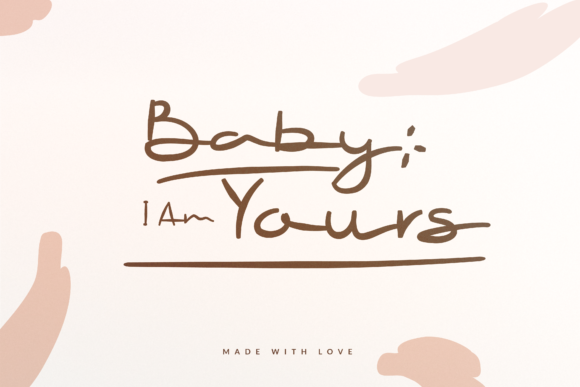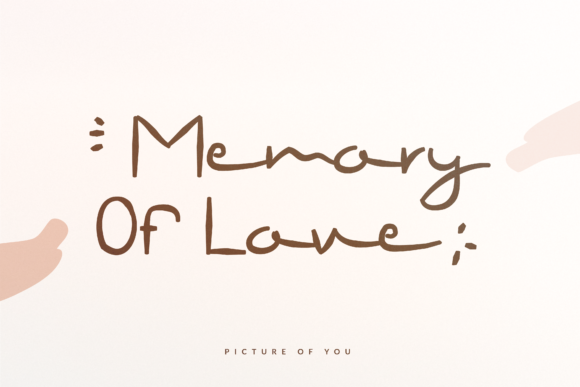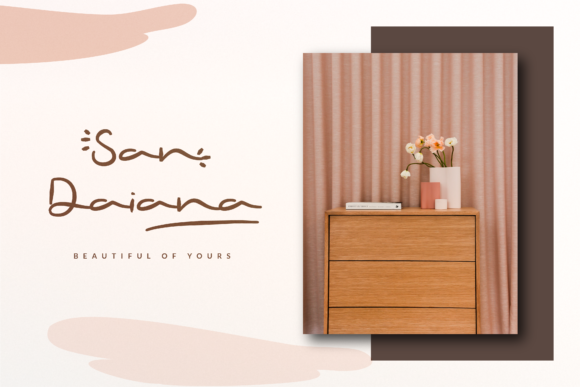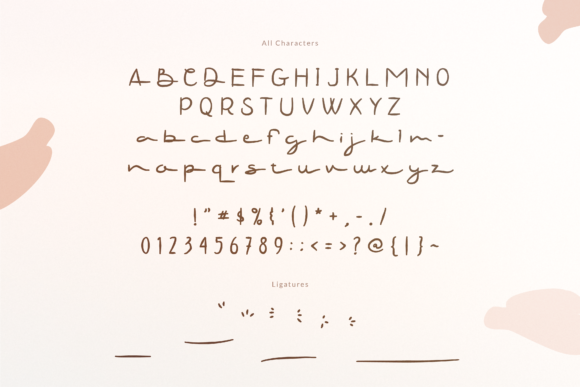
The Elusive Perfect Font: My Encounter with Cakama
Ah, the quest for the perfect font. We’ve all been there – pouring over font libraries, scrolling through endless pages of options, and still, nothing seems quite right. I recall working on a project for a high-end client, demanding a font that exuded sophistication and elegance. The design brief called for a script font that could elevate the brand’s image, but my usual go-tos just didn’t cut it. That’s when I stumbled upon Cakama, a chic, refined script font that instantly caught my attention.
First Impressions: A Love Affair with Cakama
Cakama is more than just a font; it’s a statement piece. Its stylish alternates and ligatures make it the perfect match for any project that demands a touch of luxury. Here’s what I love about Cakama:
- ✨ Elegant and sophisticated, perfect for high-end branding projects
- 💫 Beautiful stylistic alternates and ligatures for added creativity
- 🔥 Works seamlessly with OpenType features
The Not-So-Perfect: A Few Quirks
While Cakama has won my heart, it’s not without its limitations. A few things to keep in mind:
- ⚠️ Some users may find the font a tad too refined for casual projects
- 🤔 Limited use of Cakama in body text, as it’s best suited for headlines and titles
Cakama’s Design Story
While the origins of Cakama might be shrouded in mystery, it’s clear that its designer aimed to create a font that embodies sophistication and elegance. Imagine a designer, fueled by a passion for luxury brands and high-end fashion, setting out to craft a font that would make these worlds come alive.
- Q: Is Cakama suitable for body text?
- A: While Cakama is stunning, it’s best used for headlines and titles due to its refined nature and limited legibility at smaller font sizes.
- Q: Does Cakama support OpenType features?
- A: Yes, Cakama fully supports OpenType features, including ligatures and stylistic alternates, allowing for a high degree of customization.